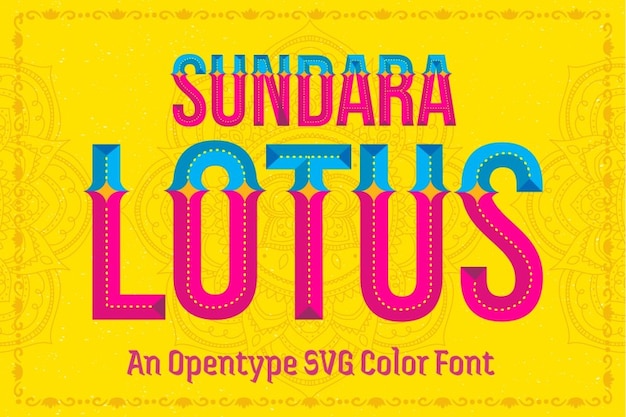
Sundara Lotus
Sundara Lotus Font
Sundara Lotus is a vibrant and modern Diwali font that blends tradition with visual intensity. With a gradient palette and bold sans structure, it evokes the richness of Indian festivities and the beauty of the lotus. Perfect for celebratory designs that aim to feel both cultural and contemporary.